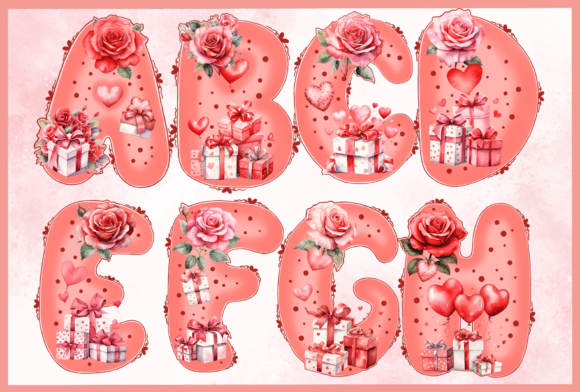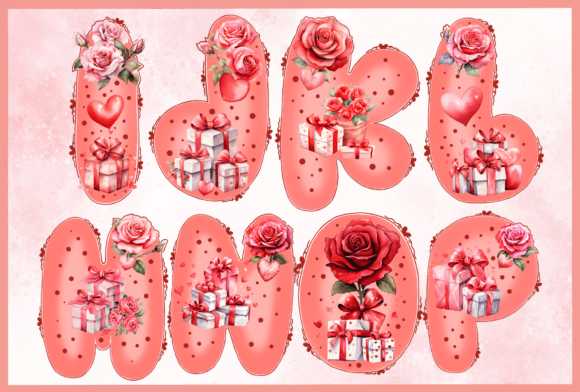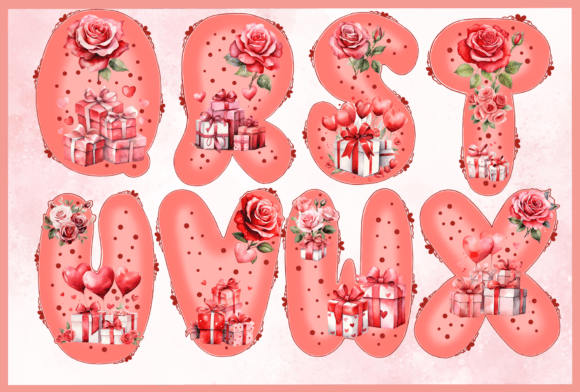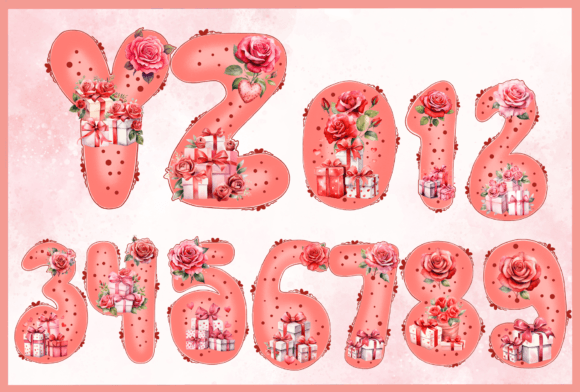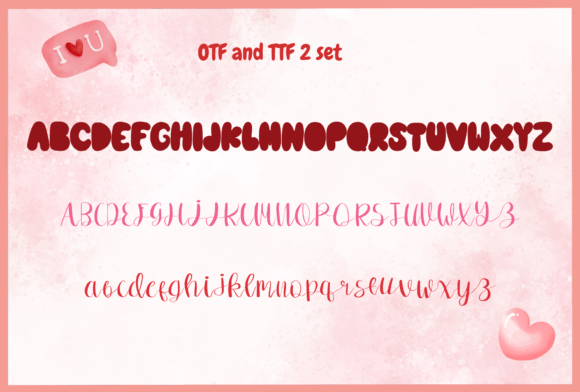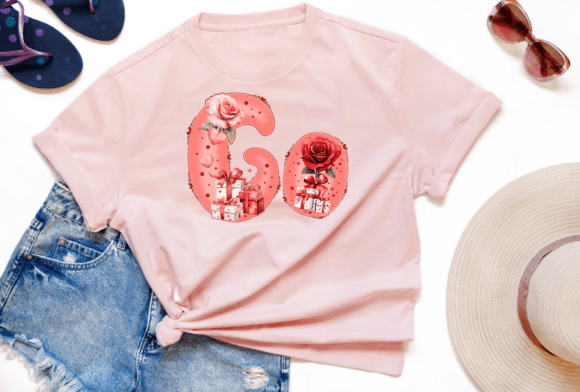
Get Ready to Fall in Love with Your Creations
Have you ever found yourself stuck in a creative rut, rummaging through your design supplies, searching for the perfect touch to make your project truly special? I know I have! That’s when I stumbled upon the Honey Font, and I just couldn’t get enough of its charm.
This adorable font is designed to add a touch of sweetness to your designs, making it perfect for Valentine’s Day or any other occasion that calls for a little love. With its beautiful, intricate details and elegant rose decorations, the Honey Font is a game-changer for any designer looking to elevate their craft.
Whether you’re a seasoned pro or just starting out, the Honey Font is a valuable addition to your design toolkit. Its versatility and compatibility with popular cutting machines and design programs make it a must-have for anyone looking to create stunning, professional-grade designs.
Honey Font Key Features
- Font Family: Honey Font is a unique, handwritten font designed to evoke a sense of warmth and sophistication.
- Unique Characteristics: Features a unique blend of handwritten and modern elements, giving it a distinctive look that sets it apart from other fonts.
Honey Font Review
I recently had the chance to work with the Honey Font, and I have to say it’s a sweet addition to any design project ✨. Here are a few things I love about it:
- The Honey Font has a unique, modern aesthetic that’s perfect for branding and advertising materials ✨.
- The font is highly customizable, making it easy to adjust to your specific design needs ✨.
- The Honey Font is compatible with a wide range of devices and browsers, ensuring your design looks great across platforms ✨.
- The font may not be suitable for body text, as it can be quite difficult to read in smaller sizes ⚠️.
- The Honey Font may not be as versatile as other fonts, as it’s primarily designed for display use ⚠️.
Overall, I’m impressed with the Honey Font. While it may have some limitations, its unique aesthetic and customization options make it a great choice for designers looking to add a touch of modernity to their projects. Just be sure to use it wisely, and you’ll be golden ✨.
Tips for Getting the Most Out of the Honey Font
Use the Honey Font for:
- Cursive or handwritten-style text.
- Titles and headings.
- Quotes and captions.
For best results, pair the Honey Font with a clean and simple font for body text.
Alternatives to “Honey Font” for Designers
Great Vibes is a beautiful, elegant script font that is perfect for creating a warm and inviting atmosphere in your designs. It is ideal for use in logos, branding materials, and any other application where a touch of sophistication is required.
Compared to Honey Font, Great Vibes has a more refined and sophisticated feel, making it a great choice for high-end designs. However, it may not be as versatile as Honey Font, which has a more playful and casual tone.
Alex Brush is a stylish and modern script font that is perfect for use in creative and artistic designs. It has a unique, hand-painted feel that adds a touch of personality to your work.
Compared to Honey Font, Alex Brush has a more modern and edgy feel, making it a great choice for designers who want to add some contrast to their designs. However, it may not be as warm and inviting as Honey Font.
Dancing Script is a lively and energetic script font that is perfect for use in designs that require a touch of whimsy and playfulness. It has a fun and carefree feel that is sure to capture the attention of your audience.